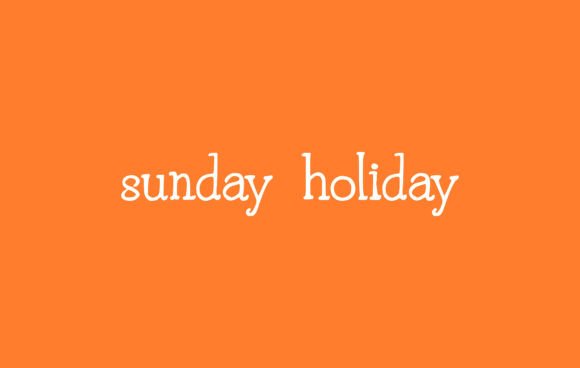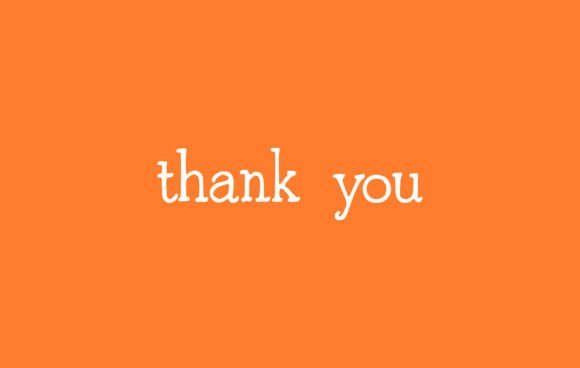
The Magic of Campfire Tales Font
There’s something special about gathering around a crackling campfire, the stars shining above, and sharing tales that transport us to another world. For designers, that same magic can be found in the perfect font – one that captures the essence of a bygone era, yet feels effortlessly modern. Enter Campfire Tales Font, an authentic handwritten font with a romantic touch that’s sure to ignite your creativity.
Expertly designed to be a true favorite, this font is perfect for designers looking to add a touch of whimsy and personality to their work. Whether you’re crafting magazine headlines, social media posts, or wedding invitations, Campfire Tales Font is the perfect choice. Its legibility and charm make it a versatile tool that’s sure to elevate your designs to new heights.
Campfire Tales Font Key Features
- Font Family: Campfire Tales is a unique, hand-drawn font with a rustic, campfire-inspired feel.
- Character Count: The font includes a wide range of characters, including uppercase and lowercase letters, numbers, and punctuation marks.
- Unique Characteristics: The font features intricate, hand-drawn details and textures, giving it a distinct, storybook-like quality.
Campfire Tales Font Review
Overall, I think Campfire Tales Font is a charming, rustic font that’s perfect for projects that need a touch of whimsy. ✨ The font’s unique blend of handwritten and serif elements creates a captivating visual interest that draws the viewer in. ✨ I love how the font’s imperfections add to its character, making it feel more like a vintage find than a mass-produced font.
Here are some specific things that work well:
- ✨ Unique blend of handwritten and serif elements creates a captivating visual interest
- ✨ Imperfections add to the font’s character and make it feel more authentic
- ✨ Perfect for projects that need a touch of whimsy or a vintage feel
- ⚠️ Limited character set – may not be suitable for projects that require a wide range of characters
- ⚠️ Some letters may be difficult to read at small font sizes
- ⚠️ May not be suitable for projects that require a high level of professionalism or formality
Overall, I think Campfire Tales Font is a great choice for projects that need a unique, whimsical feel. While it may have some limitations, I think the benefits outweigh the drawbacks.
The Campfire Tales font is perfect for creating spooky and mysterious designs, such as:
- Haunted house invitations
- Spooky social media graphics
- Creepy horror movie posters
Alternatives to Campfire Tales Font
Rockwell Font
The Rockwell Font is a serif font that is reminiscent of traditional Western-style signage. It’s ideal for use in titles, headings, and other display text where a classic, rugged feel is desired. Compared to Campfire Tales Font, Rockwell has a more formal and structured appearance, making it suitable for a wider range of applications.
The Playfair Display Font is a luxurious and elegant serif font that’s perfect for high-end branding, luxury products, and special occasions. While it shares some similarities with Campfire Tales Font in terms of its classic feel, Playfair Display is more refined and sophisticated, making it a better choice for projects that require a touch of luxury.
The Great Vibes Font is a modern and elegant script font that’s ideal for use in titles, headings, and other display text where a relaxed, casual feel is desired. Compared to Campfire Tales Font, Great Vibes has a more fluid and organic appearance, making it suitable for projects that require a touch of whimsy and personality.